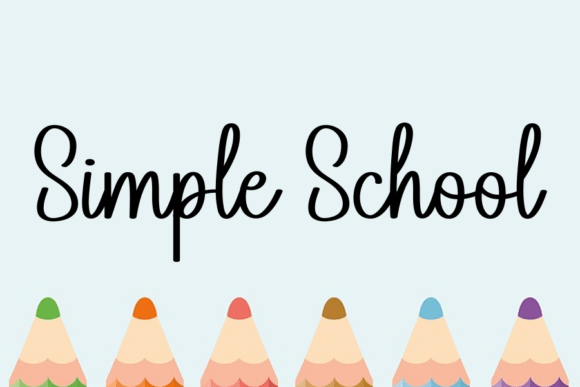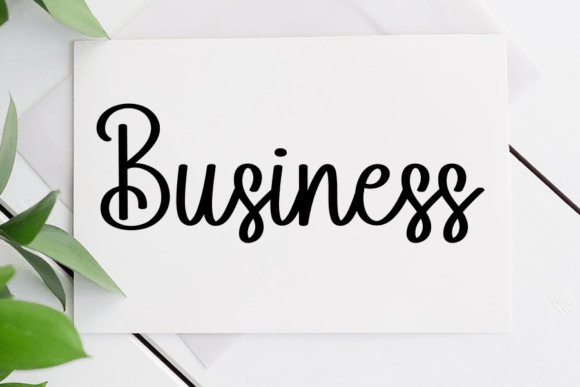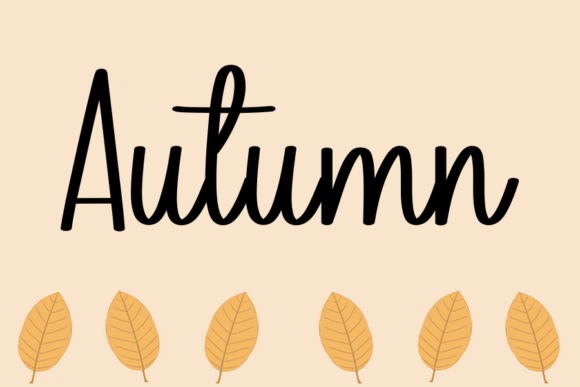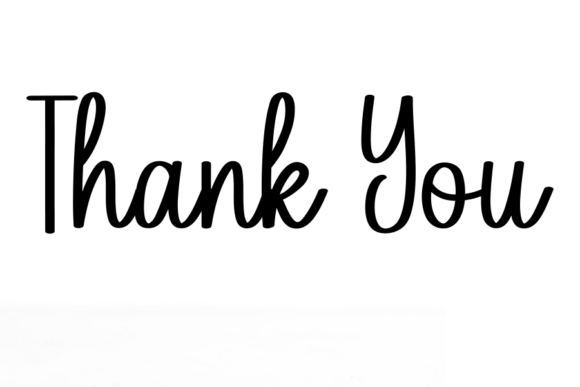
Billiard Font: Elevate Your Designs with a Sweet and Cursive Handwritten Style
Are you on the hunt for a font that can add a touch of elegance and whimsy to your designs? Look no further than the Billiard font! This beautiful, cursive handwritten font is perfect for designers and crafters who want to create stunning visuals that exude joy and romance. In this article, we’ll dive into the world of Billiard font, exploring its features, uses, and benefits, as well as provide tips on how to make the most of this gorgeous font.
What is Billiard Font?
Billiard font is a sweet and cursive handwritten font that is designed to add a touch of sophistication and playfulness to your designs. Its gentle curves and flowing lines make it perfect for creating elegant and eye-catching visuals that will capture the attention of your audience. Whether you’re working on a branding project, designing a logo, or creating wedding materials, Billiard font is an excellent choice.
Features of Billiard Font
So, what makes Billiard font so special? Here are some of its key features:
- Cursive and handwritten style: Billiard font boasts a beautiful, cursive handwritten style that adds a touch of elegance and sophistication to your designs.
- Gentle and playful curves: The font’s gentle curves and flowing lines make it perfect for creating eye-catching visuals that exude joy and romance.
- Versatile: Billiard font can be used on a variety of design projects, from branding and logos to wedding materials and greeting cards.
- Elegant yet casual: This font strikes the perfect balance between elegance and casualness, making it ideal for designers who want to create stunning visuals that are both sophisticated and approachable.
Uses of Billiard Font
Billiard font is an incredibly versatile font that can be used on a wide range of design projects. Here are some ideas to get you started:
- Branding: Use Billiard font to create a stunning brand identity that reflects your company’s personality and values.
- Logos: Design a beautiful logo that incorporates Billiard font and stands out from the crowd.
- Wedding materials: Add a touch of romance and elegance to your wedding designs, from invitations to thank-you cards.
- Greeting cards: Create stunning greeting cards for special occasions, such as birthdays, anniversaries, and holidays.
- Fashion and lookbooks: Use Billiard font to create gorgeous fashion designs and lookbooks that showcase your style and creativity.
- Marketing promotions: Elevate your marketing materials with Billiard font and make your brand stand out from the competition.
Tips for Using Billiard Font
To make the most of Billiard font, here are some tips to keep in mind:
- Pair it with contrasting fonts: Combine Billiard font with contrasting fonts to create visual interest and add depth to your designs.
- Experiment with colors: Try out different colors and color combinations to find the perfect match for your design.
- Play with sizes and styles: Don’t be afraid to experiment with different font sizes and styles to add visual hierarchy and emphasis to your designs.
- Use it sparingly: While Billiard font is beautiful, it’s best to use it sparingly to avoid overwhelming your design.
In conclusion, Billiard font is a stunning, cursive handwritten font that can elevate your designs and add a touch of elegance and whimsy. With its gentle curves, flowing lines, and versatile style, it’s perfect for a wide range of design projects, from branding and logos to wedding materials and greeting cards. By following the tips outlined in this article, you can make the most of Billiard font and create stunning visuals that capture the attention of your audience.